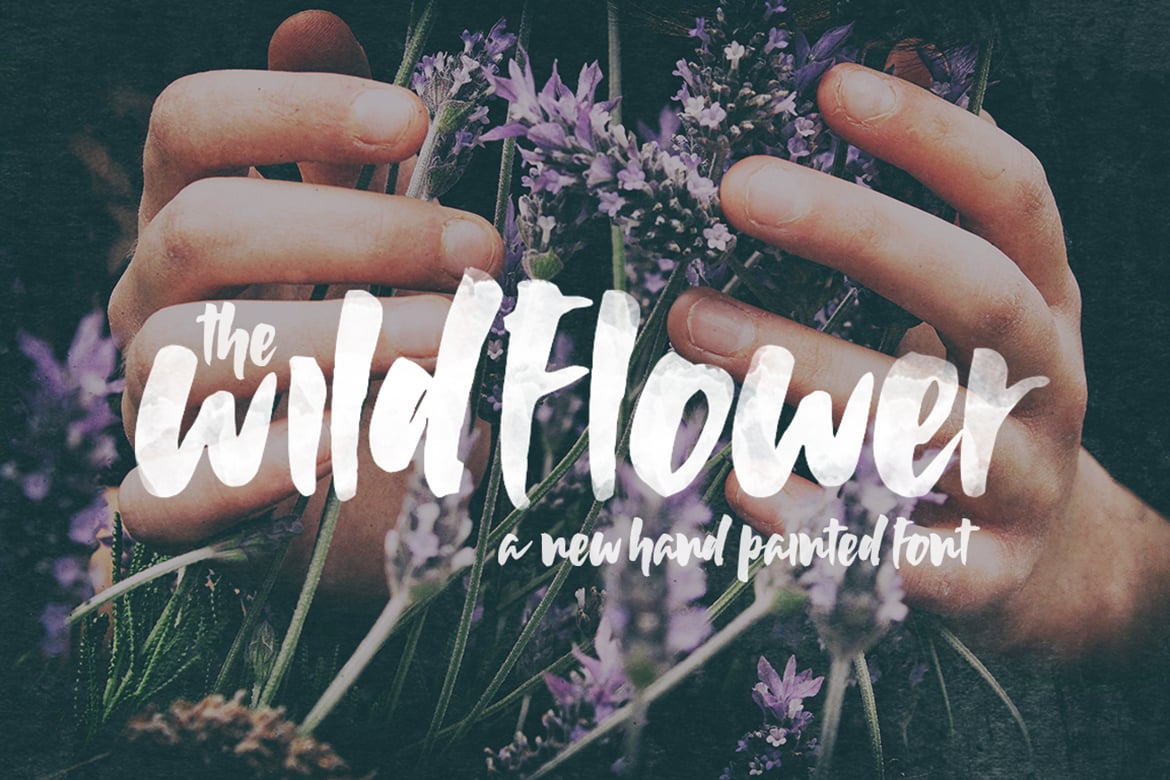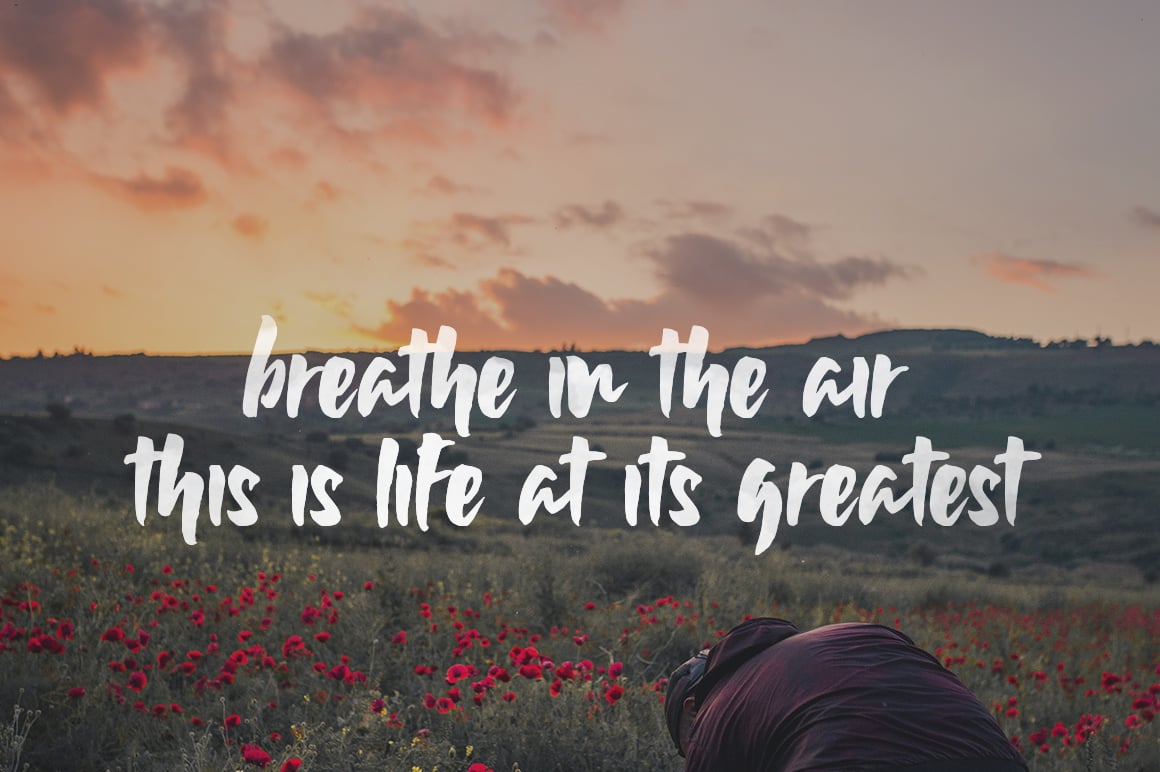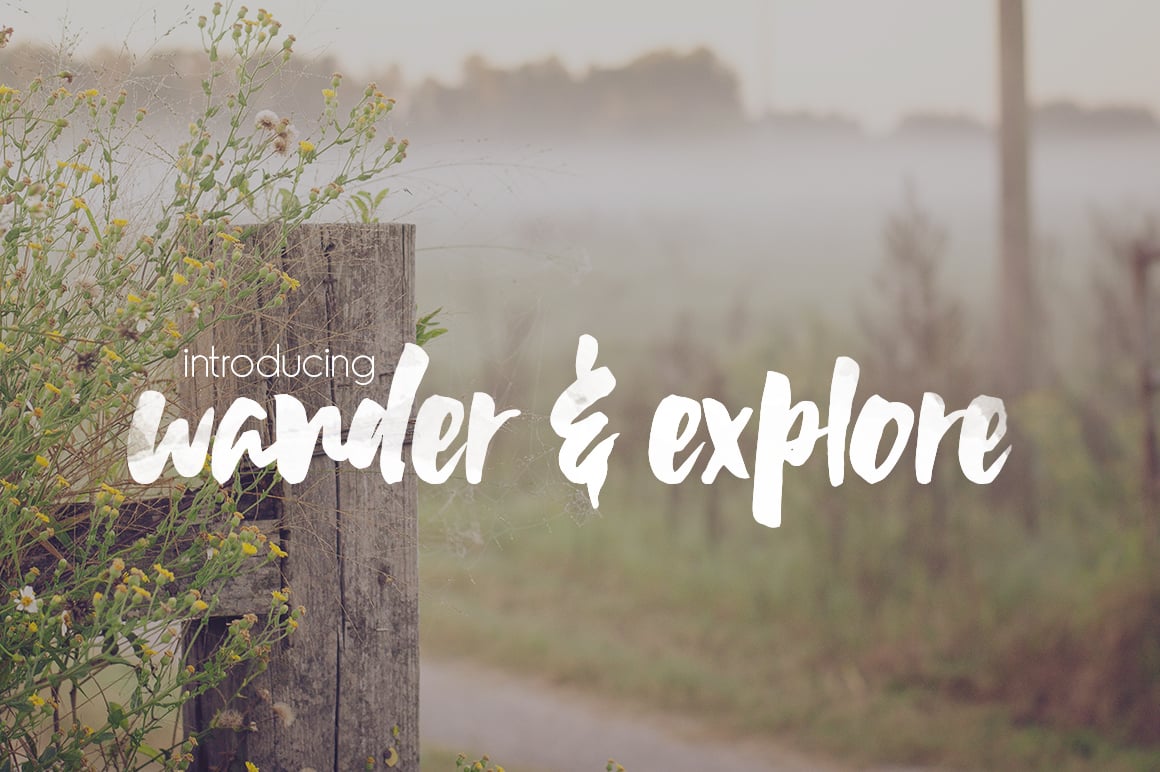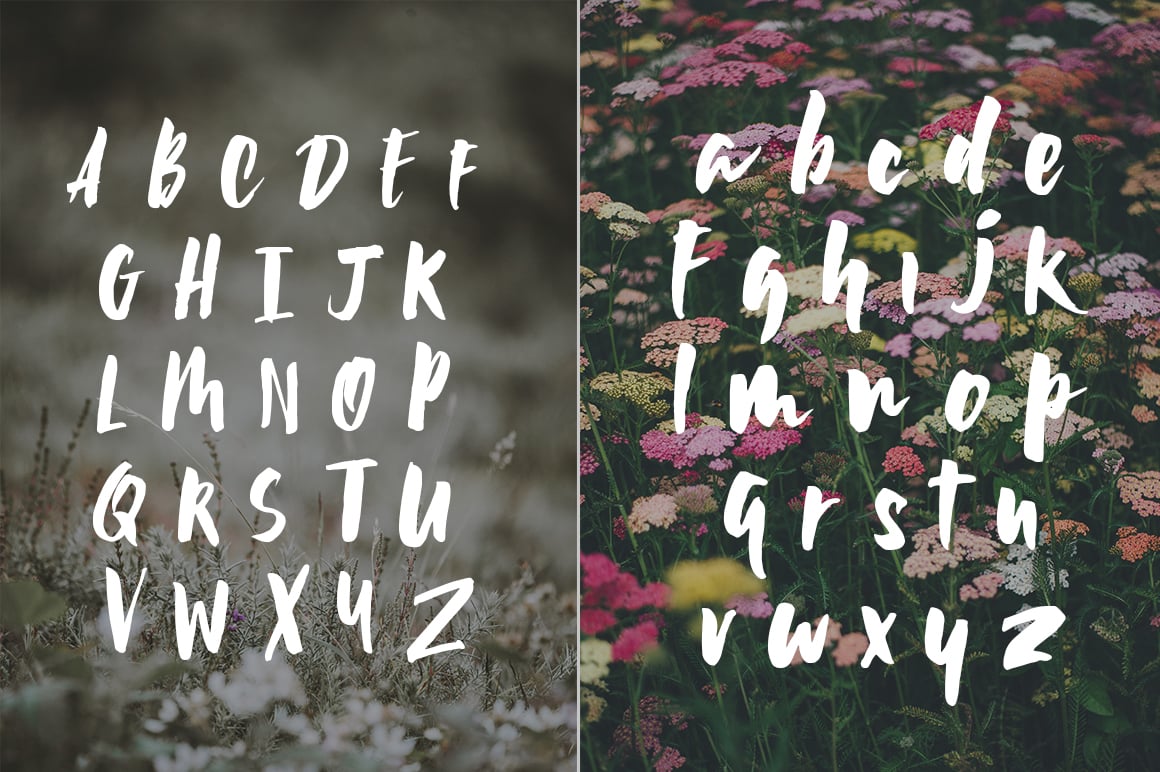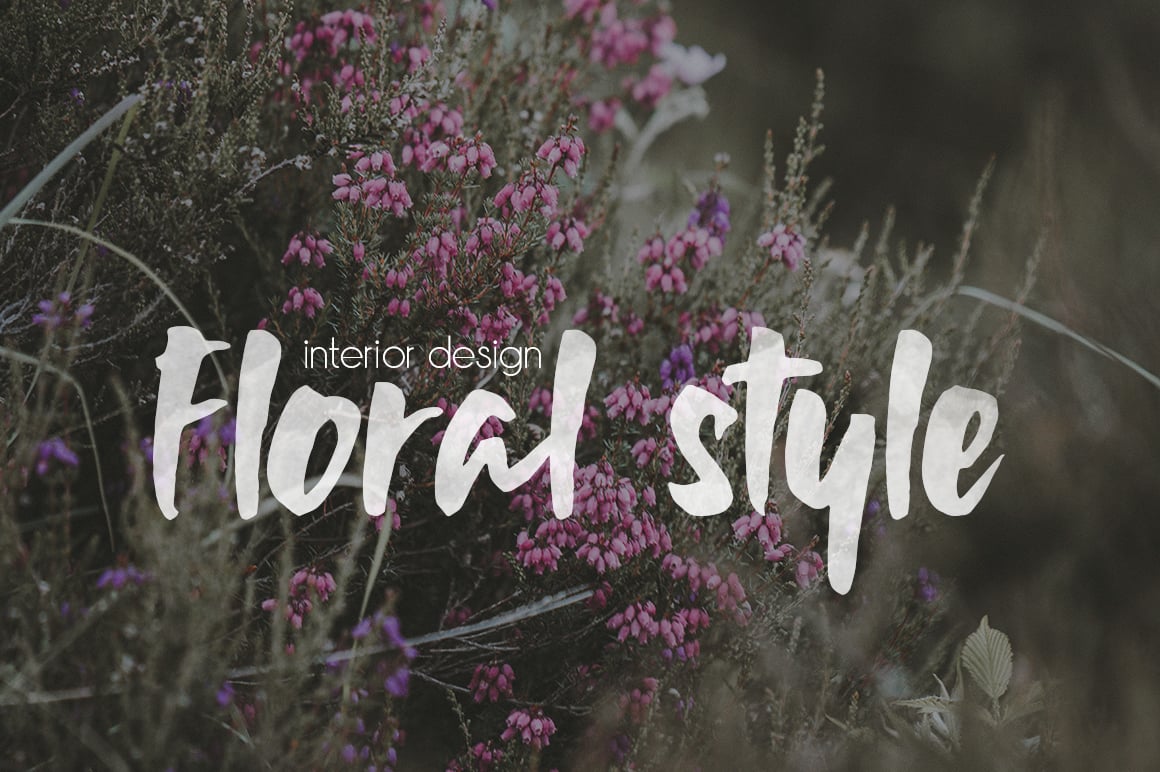
Wildflower Font
Here it is, the brush font you’ve all been waiting for – The Wildflower! Hand painted to ensure uniqueness and a natural flow, we love how effortlessly cool this new font turned out!